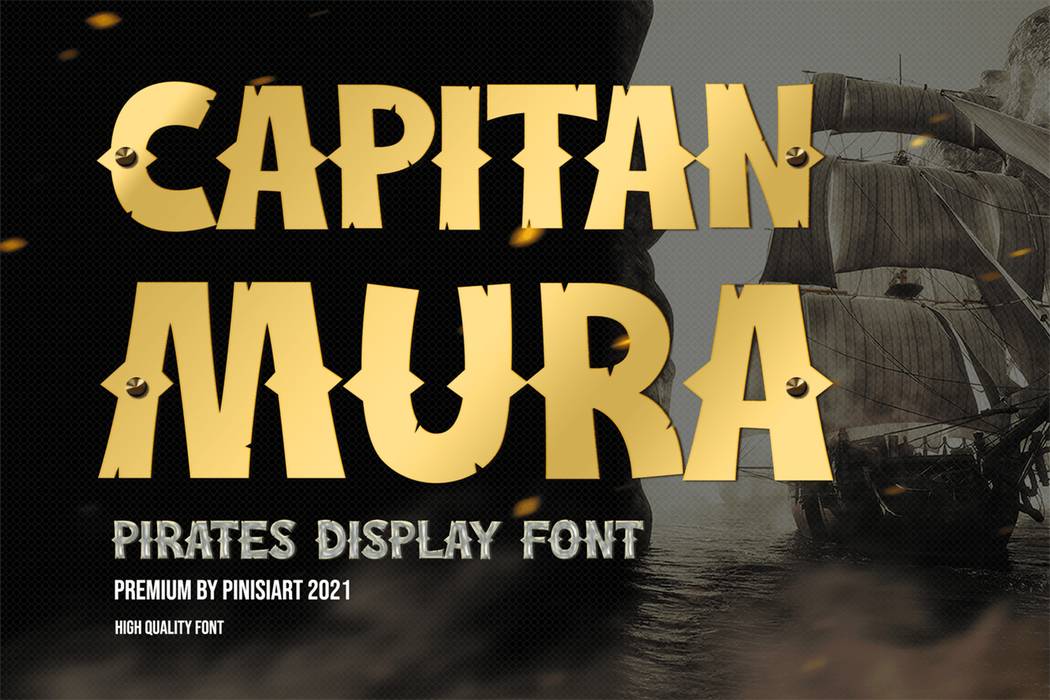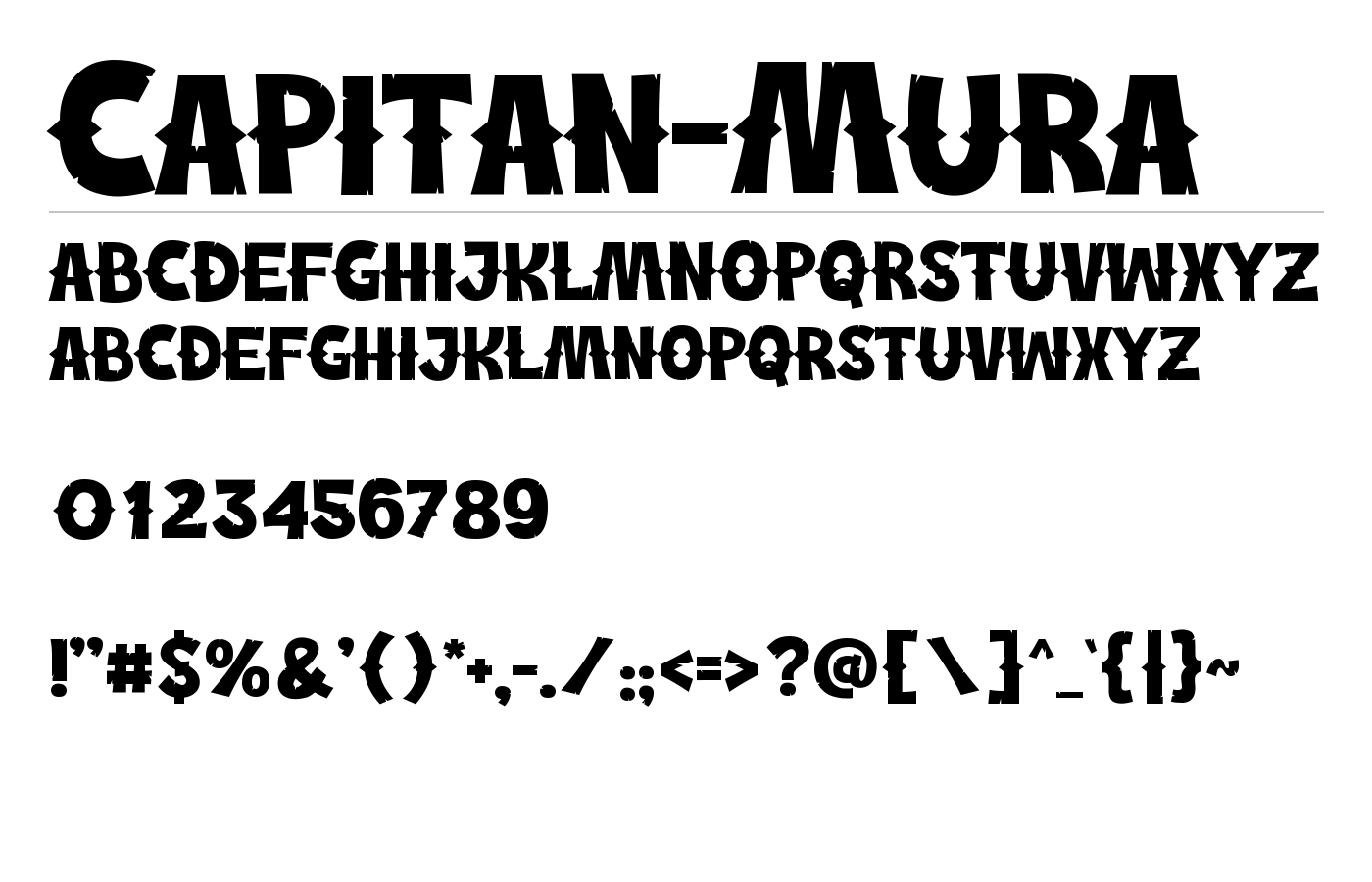
Capitan Mura is a bold, condensed sans serif font with a playful, slightly rugged personality. Its thick, jagged edges and irregular shapes give it a hand-crafted, energetic feel, making it ideal for eye-catching headlines, posters, and branding that aims to convey fun and creativity. This font works especially well for informal or adventurous designs needing a strong, memorable presence.
Capitan Mura Font
About Capitan Mura Font